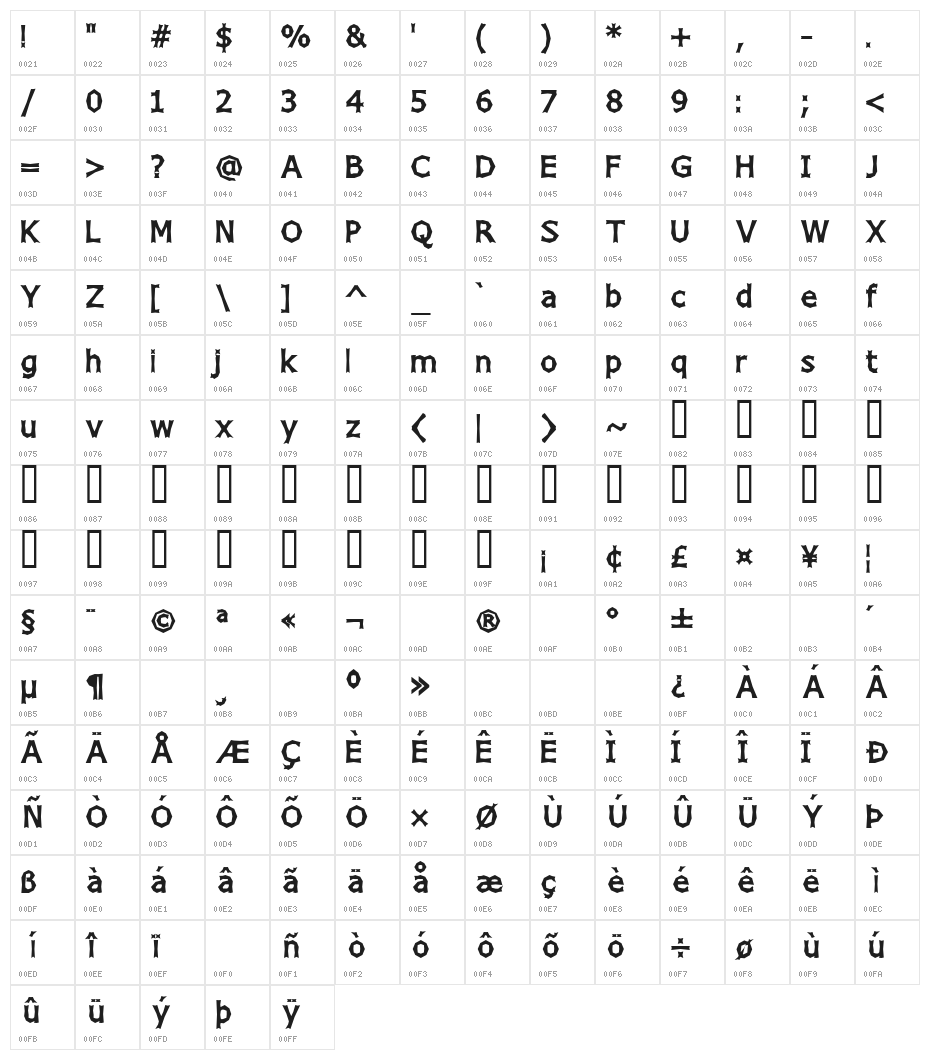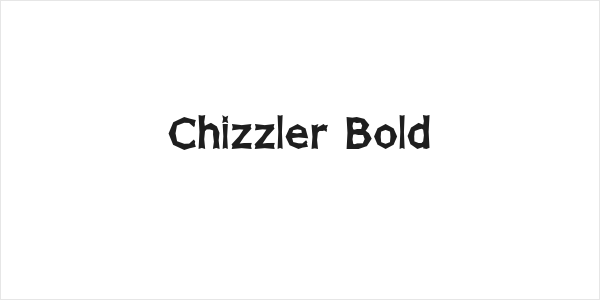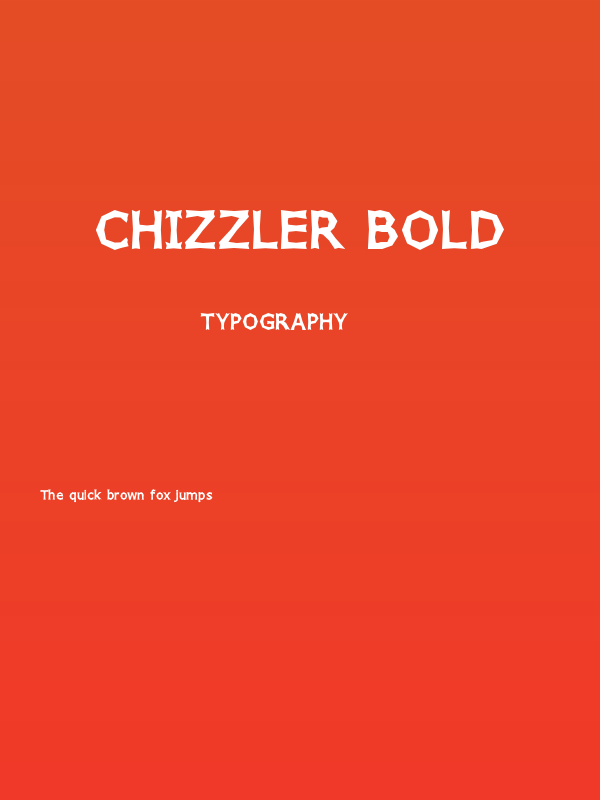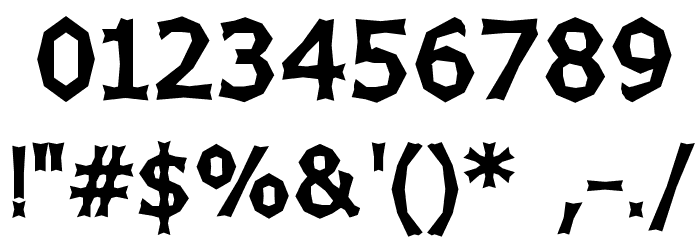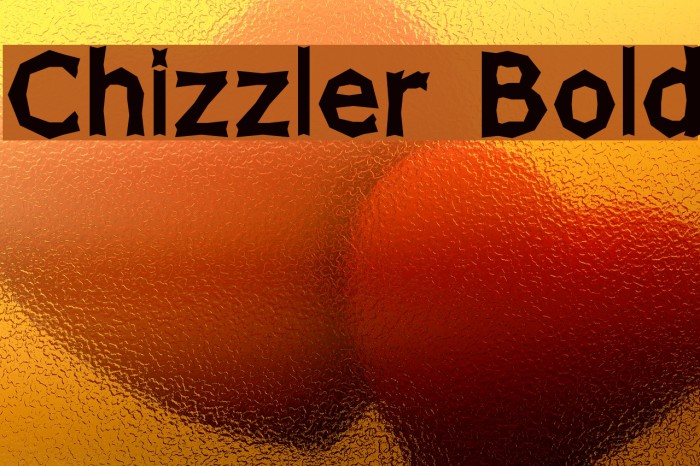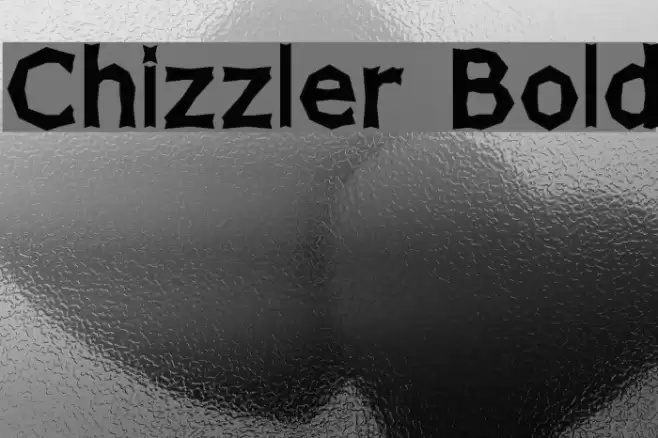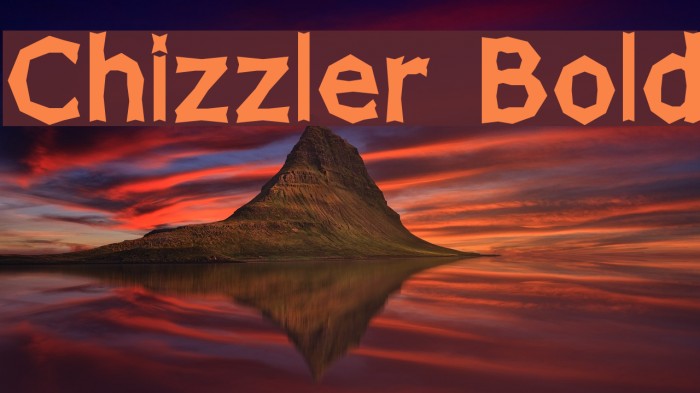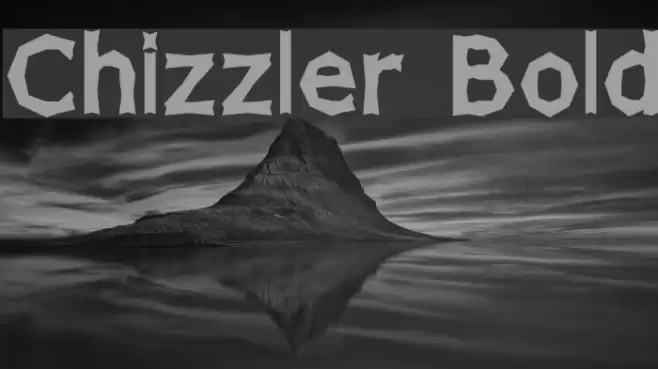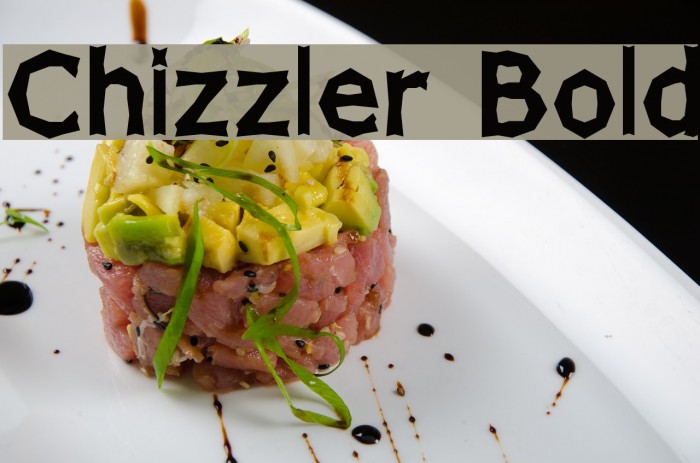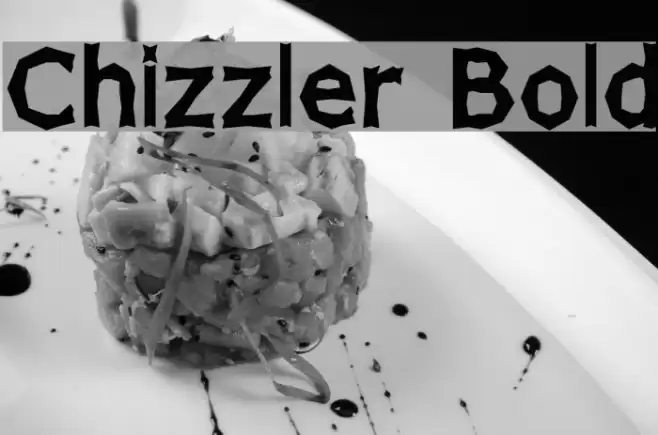
Chizzler Bold Font
Chizzler Bold Description
This font features a bold and rugged design, characterized by its sharp, chiseled edges and irregular strokes. The uppercase and lowercase letters maintain a consistent style, with a slightly distressed appearance that adds a sense of dynamism and energy. The numbers and special characters follow the same aesthetic, making the font cohesive and versatile. Its unique style is reminiscent of hand-carved lettering, providing a distinct and eye-catching look. The font's boldness and distinctive character make it suitable for projects that require a strong visual impact.
| Proposed Projects | Ideal for posters, logos, album covers, and any design requiring a bold, impactful look. |